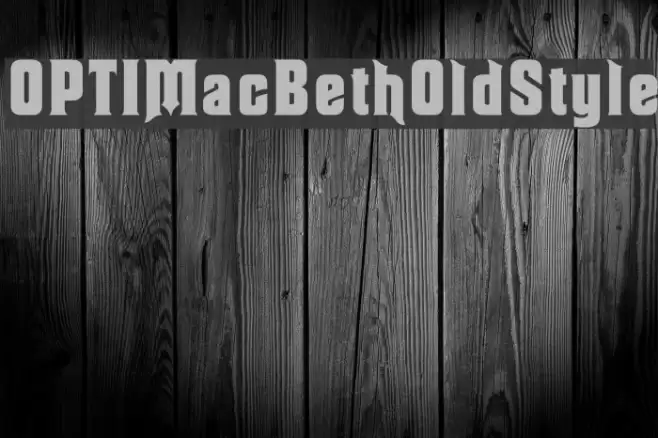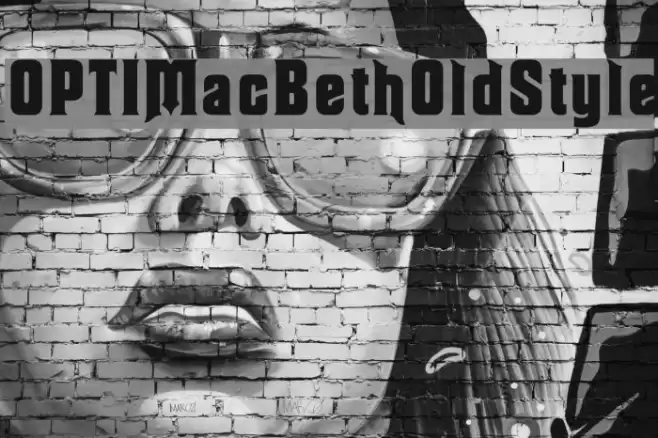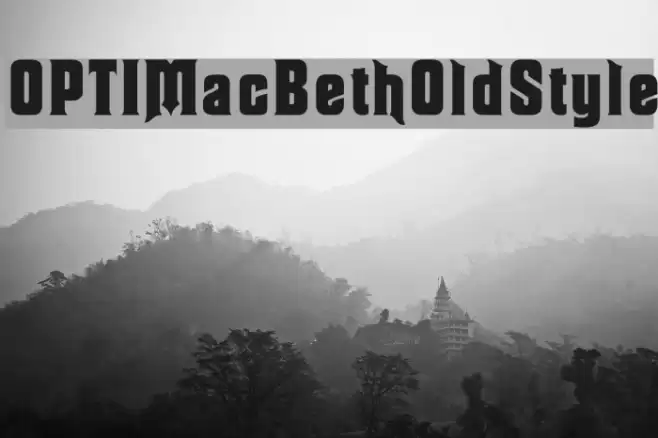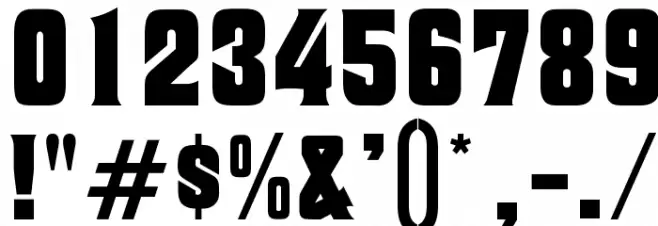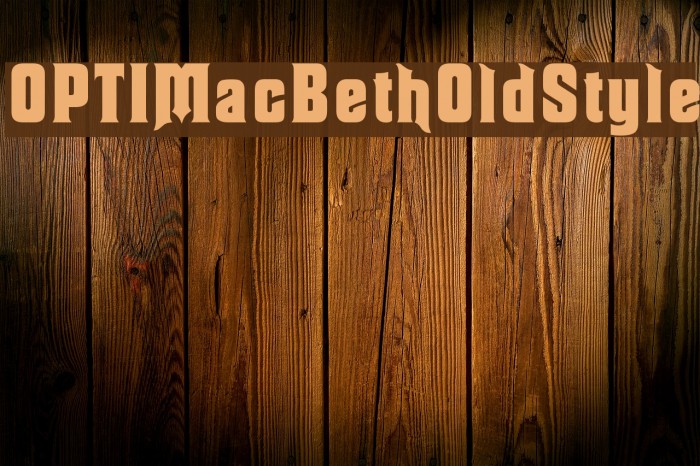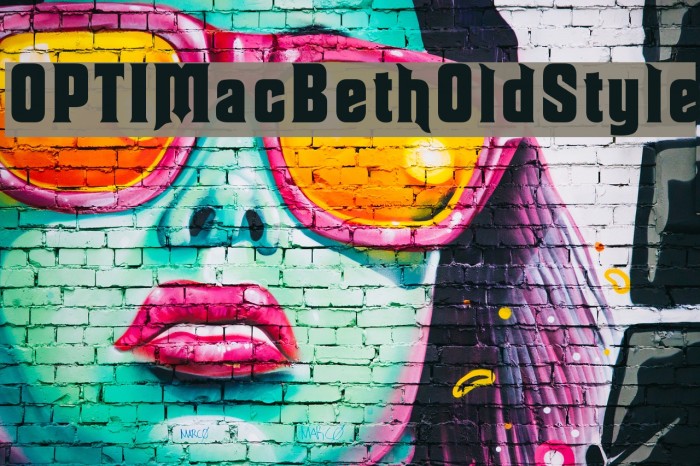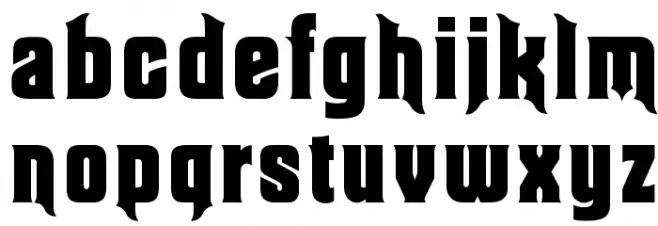
OPTIMacBethOldStyle Font
OPTIMacBethOldStyle Description
This font features a bold, dramatic style with strong, angular serifs and a distinct old-world charm. The uppercase letters are particularly striking, with sharp edges and a sense of grandeur. The lowercase letters maintain a consistent style, offering a cohesive look across all characters. Numbers are bold and easily legible, making them suitable for impactful displays. Special characters are designed with the same attention to detail, ensuring they fit seamlessly with the rest of the font. The overall appearance is reminiscent of traditional blackletter styles, yet it maintains a modern twist, making it versatile for various design needs.
A bold, dramatic font with angular serifs and a classic blackletter influence from Uncategorized fonts.
- Proposed Projects: Ideal for vintage-themed posters, book covers, branding for luxury products, and any project requiring a touch of elegance and drama.
- Overall Style: Vintage